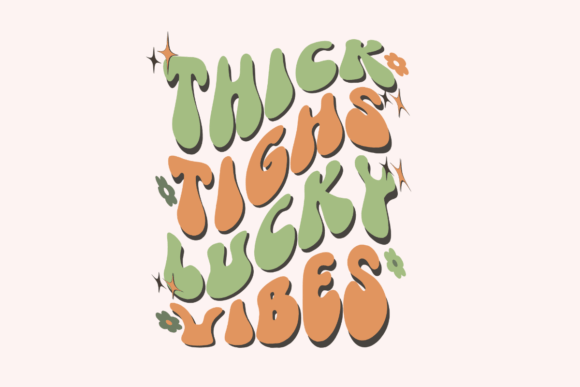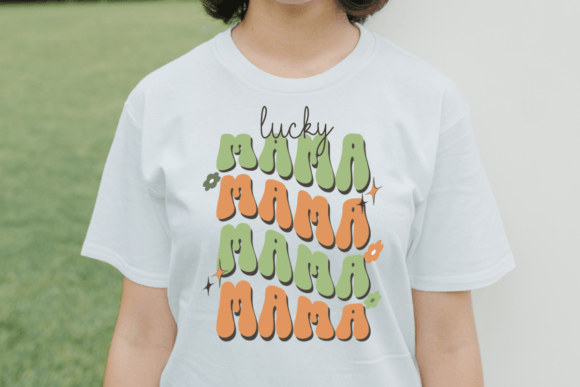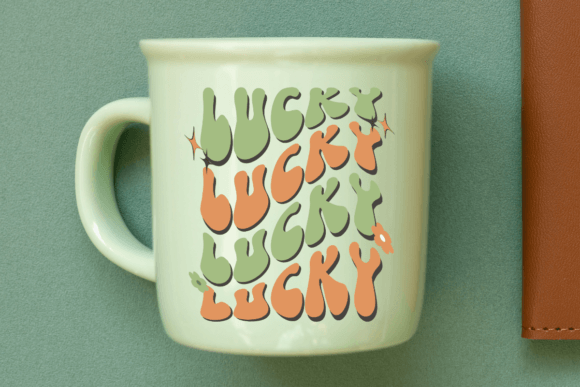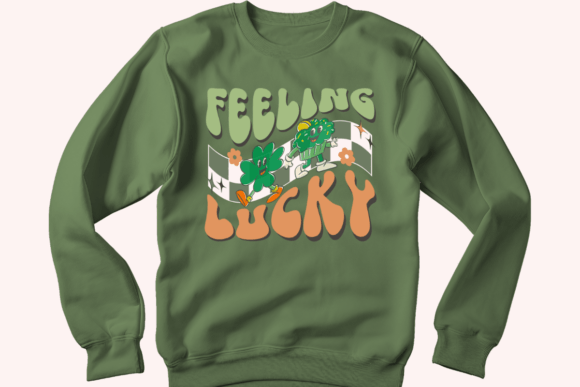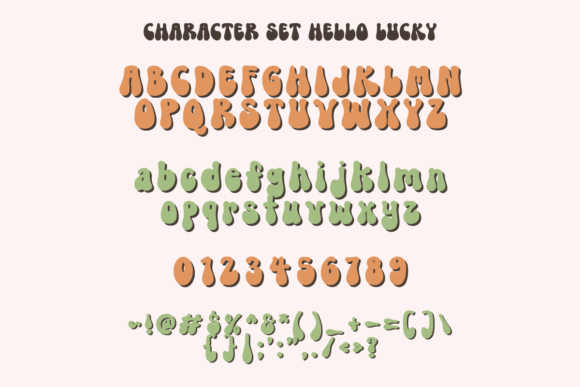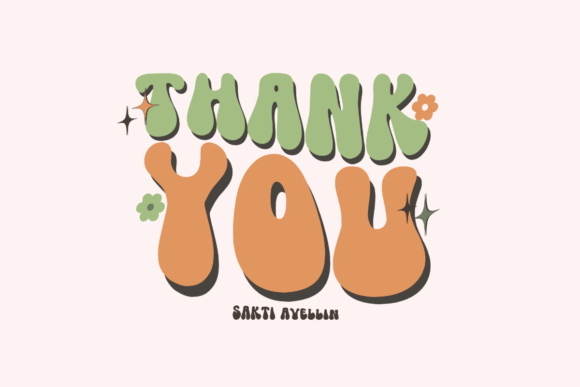
Introduction to Hello Lucky Font
Remember that moment when you stumble upon the perfect font, and your creative project suddenly comes alive? It’s like discovering a hidden treasure that elevates your design from good to great. For me, that moment happened when I found the Hello Lucky Font – a fun and retro font that screams joy and positivity.
As a designer, you’re always on the lookout for high-quality design resources that can add a unique touch to your work. The Hello Lucky Font is one such treasure, perfect for st Patrick’s day designs, and any project that needs a cheerful accent. With its transparent background and free download option, this font is a valuable asset for any creative project.
Whether you’re designing book covers, posters, or packaging, the Hello Lucky Font is sure to bring a smile to your face and your audience’s eyes. In this article, we’ll dive deeper into the world of this amazing font and explore its possibilities.
Key Features of Hello Lucky Font
- High-quality, hand-drawn design: Hello Lucky Font is a unique and creative resource for designers working on various projects.
- Transparent background: This feature makes it easy to customize and combine the font with different backgrounds, perfect for creative projects.
- High-resolution design: With a resolution of 300 DPI, Hello Lucky Font is suitable for printing and various high-quality applications.
- Perfect for creative projects: The font’s unique and playful design makes it an ideal choice for designers working on children’s books, magazines, and other creative projects.
Honest Review: Hello Lucky Font
As a designer, I’m always on the lookout for high-quality design resources that can elevate my creative projects. The Hello Lucky Font is one such find that I’d like to share with you.
- ✨ The font has a transparent background, making it easy to use with various backgrounds and images.
- ✨ The design is modern and playful, perfect for a wide range of creative projects, from branding to packaging.
- ⚠️ The font may not be suitable for all types of projects, particularly those that require a more formal or professional tone.
- ⚠️ The font’s playful nature may be distracting in certain contexts, so be sure to use it thoughtfully.
Overall, I’m impressed with the Hello Lucky Font. It’s a versatile and high-quality design resource that can add a touch of whimsy to your creative projects. With its transparent background and modern design, it’s an excellent choice for designers looking to add some personality to their work.
Tips for Getting the Most Out of the Hello Lucky Font
Here are a few tips for getting the most out of the Hello Lucky Font:
- Experiment with different font styles and weights to find the perfect match for your design.
- Use the font in combination with other design resources to create a unique and eye-catching design.
- Take advantage of the font’s transparent background to create a seamless design.
The Hello Lucky Font is a versatile design resource that can be used in a wide range of creative projects, including:
- Reports